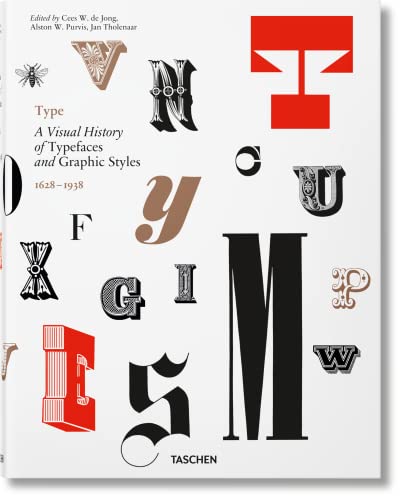
Type. A Visual History of Typefaces & Graphic Styles (Multilingual Edition)
In the chaotic landscape of visual communication, where design decisions can shape cultures and influence movements, Type. A Visual History of Typefaces & Graphic Styles emerges like a lighthouse guiding weary sailors through tumultuous seas. This monumental tome, skillfully crafted by Alston W. Purvis, Cees W. de Jong, and Jan Tholenaar, is not just a book; it's a deep dive into the soul of typography, revealing the intricate dance between letterforms and graphic styles that has defined epochs.
Stirring deep emotions, this visual history is a treasure trove for anyone captivated by the aesthetics of the written word. With the turn of each page, you're not merely encountering letters-you are engulfed in stories of innovation, rebellion, and the relentless pursuit of beauty. The authors take you through time, from the majestic engravings of the Renaissance to the vibrant noise of contemporary typography, showcasing how each style reflects the societal attitudes and technological advancements of its time. 🤯
The importance of typography cannot be overstated. Think about it: the fonts we choose in our daily lives can convey authority, warmth, or even urgency. The interplay of serifs and sans-serifs is nothing short of a linguistic ballet, one that speaks to our emotions on an often subconscious level. The insights from Purvis, de Jong, and Tholenaar serve to remind us that every curve and line carries a weight of historical significance-each letter is a bridge from the past to the present, telling tales of human experience in a visual language that transcends words.
Readers rave about the book's rich illustrations and comprehensive approach, praising it for being both educational and visually stunning. Many have described it as an essential companion for graphic designers and typographers, while others find it a wellspring of inspiration-an unexpected muse that ignites a passion for exploring the boundaries of design. Critics, however, point out that the sheer volume of information can feel overwhelming, a tempest of detail that may leave the uninitiated gasping for breath.
Nevertheless, it's precisely this depth that makes this work a masterpiece. When you grapple with its complexity, you will inevitably emerge with a newfound respect for the nuances that define communication. You'll find yourself questioning the very fonts you use, decoding their emotional resonance, and analyzing the implicit messages they carry. You'll never look at a simple text in the same way again. This book is an invitation to linger a little longer on signs, packaging, and every bit of printed matter that crosses your path. 📚✨️
The context in which Type was birthed-a world flooded with digital noise and an explosive renaissance in design-serves to ground its narrative. In a time where typefaces are increasingly democratic, accessible at the click of a button, the authors remind us that behind every font lies a lineage, a craft honed through centuries of exploration and innovation.
Imagine the giants whose work paved the way for contemporary type: think about Helvetica or Garamond, fonts that have graced countless pages and screens, guiding our thoughts before we even had the chance to realize it. This book is a homage to those luminaries, a heartfelt thank-you for the silent dialogues they orchestrate between the text and its audience.